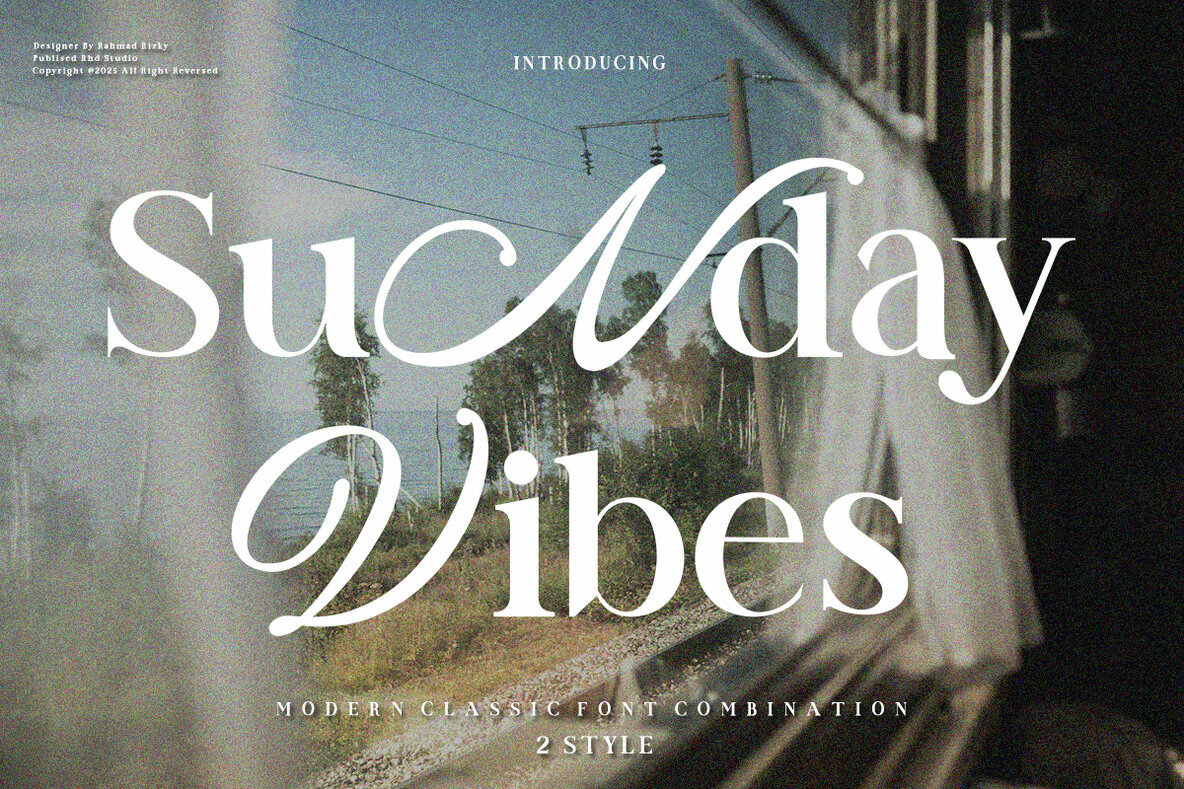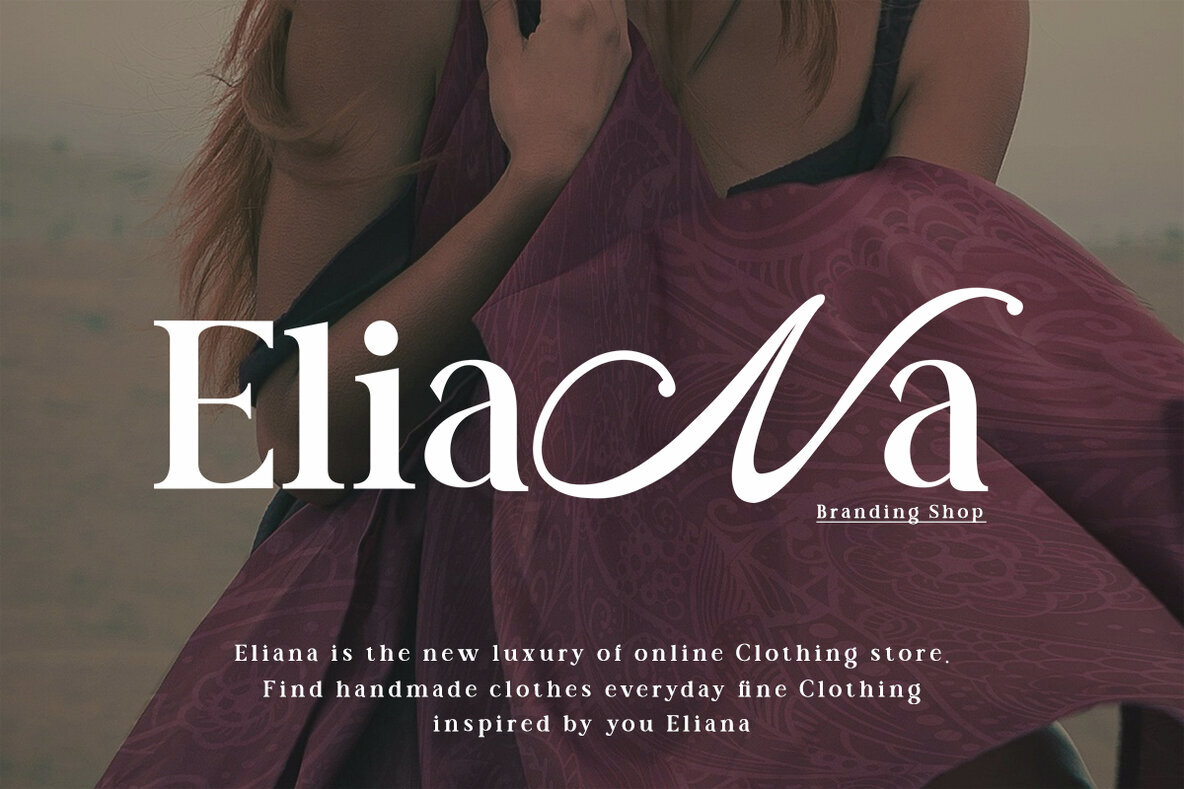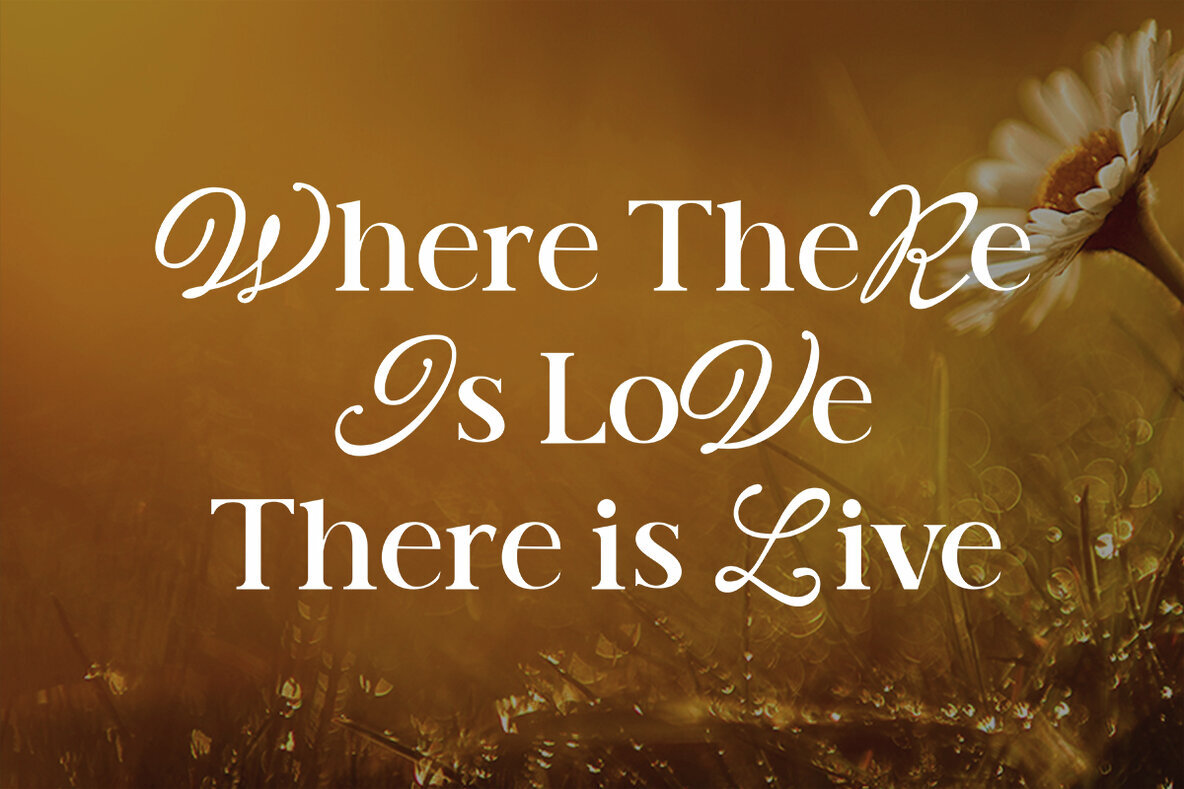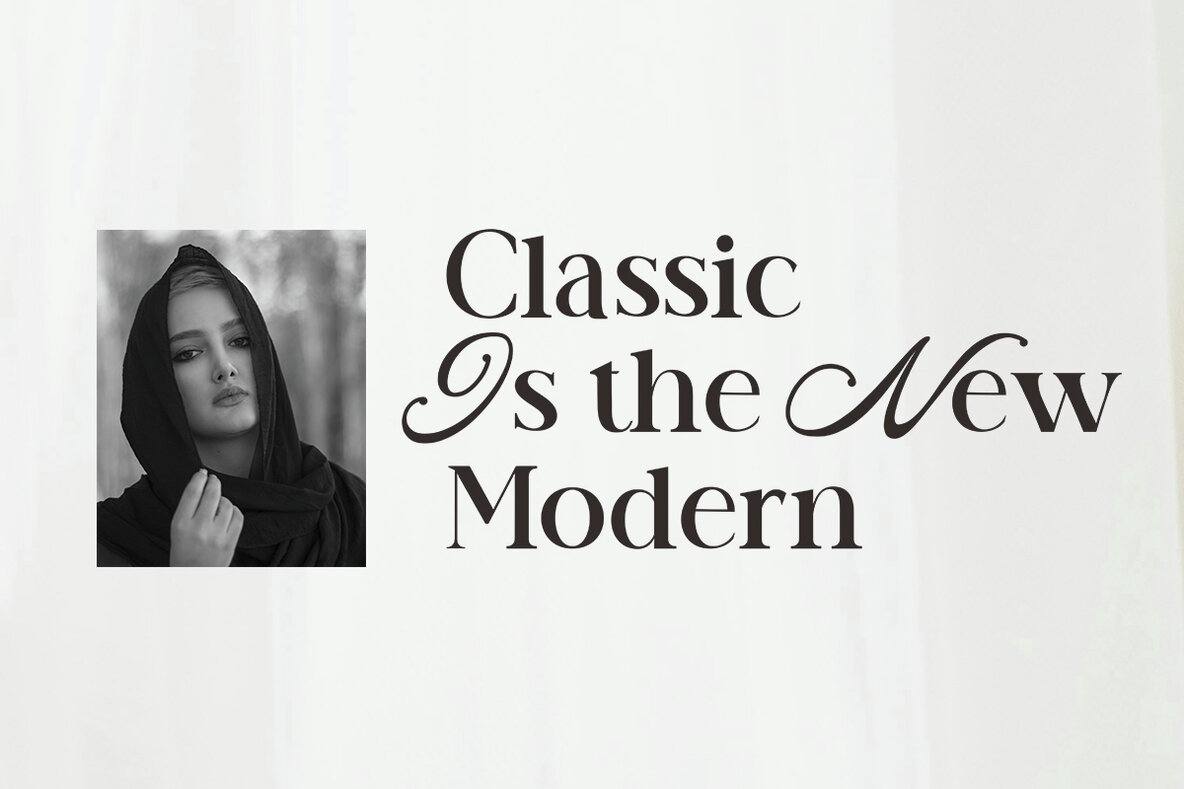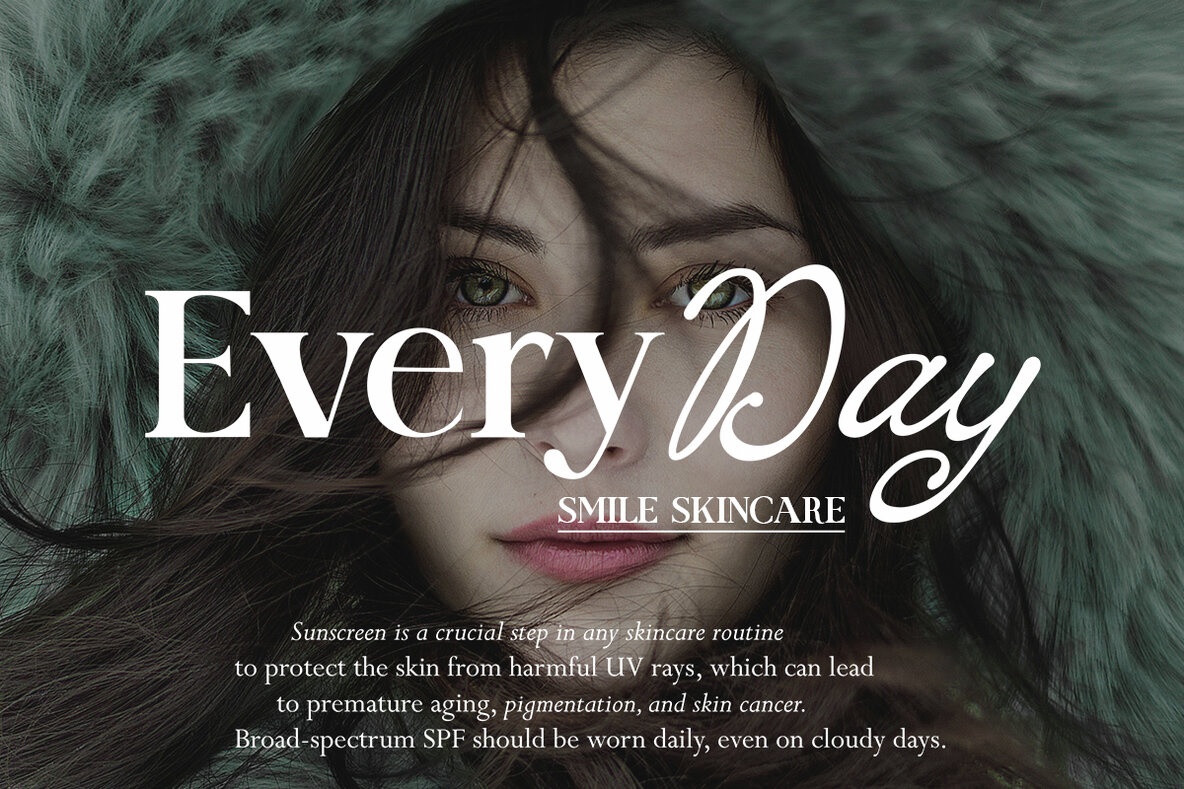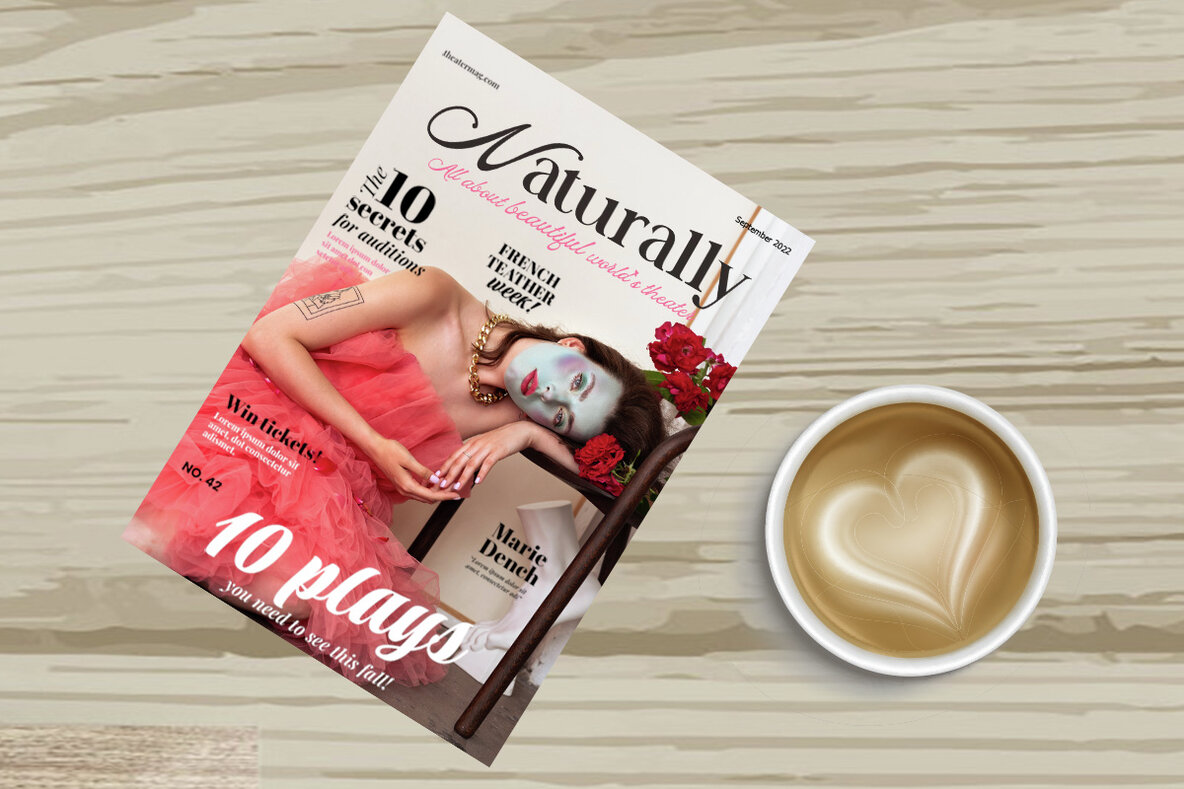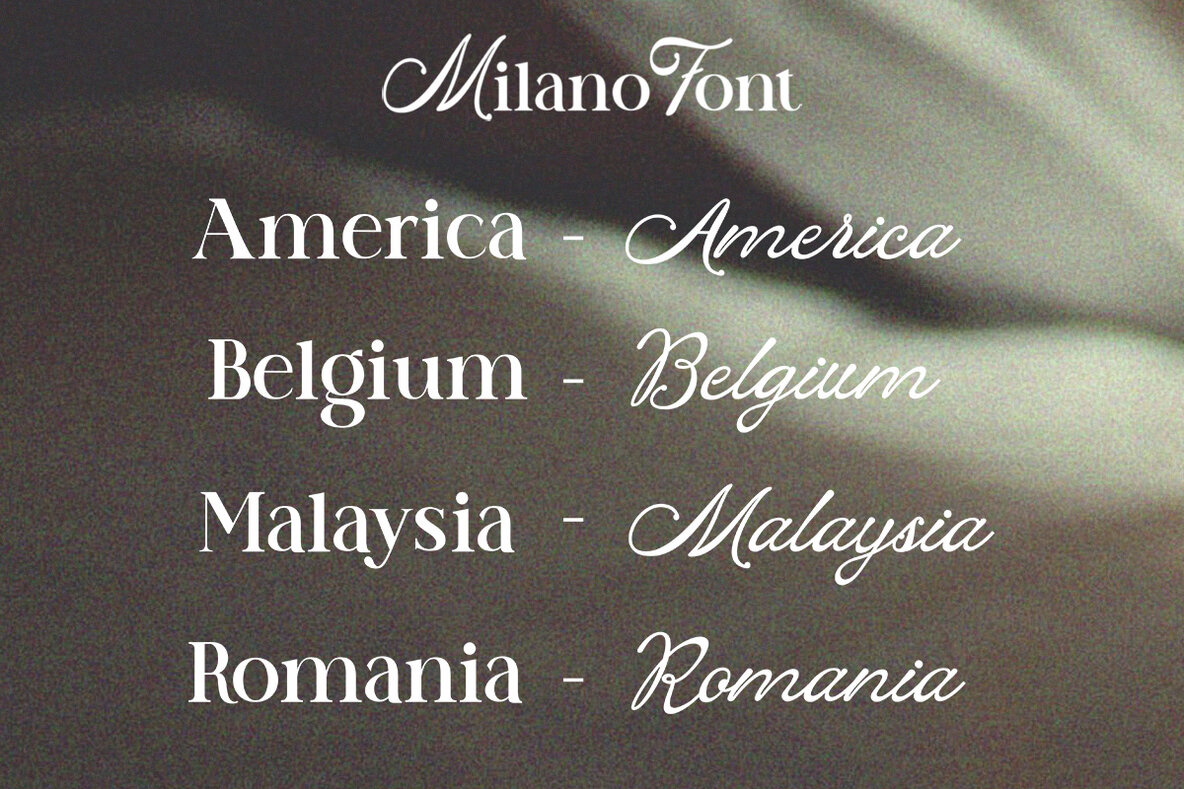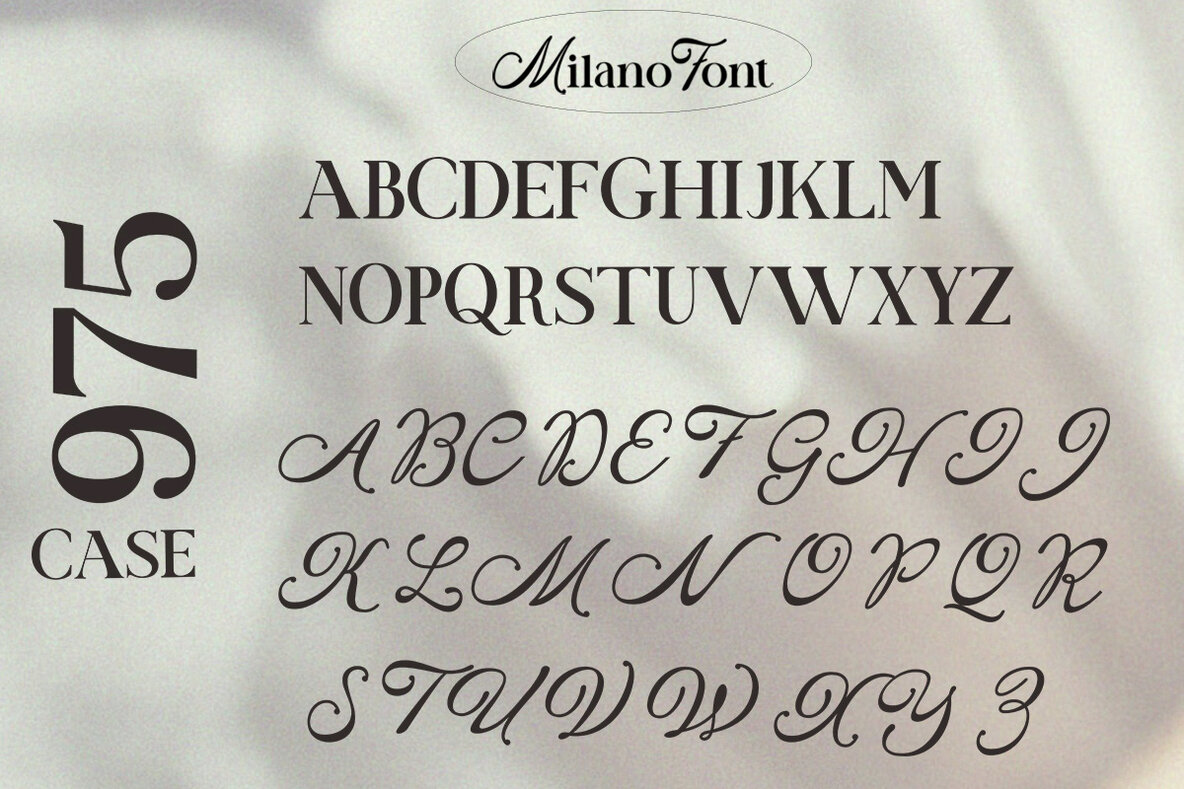
Sunday Vibes Font
Sunday Vibes offers a captivating fusion of modern classic and serif styles, available in two distinct versions: Regular and Modern Classic. This elegant typeface is crafted specifically for headlines, titles, and other succinct text applications. Its versatility makes it ideal for a wide array of projects, from advertising and branding to vintage mood boards and modern logos.Sunday Vibes: A Modern Classic Serif
Endless Creative Applications